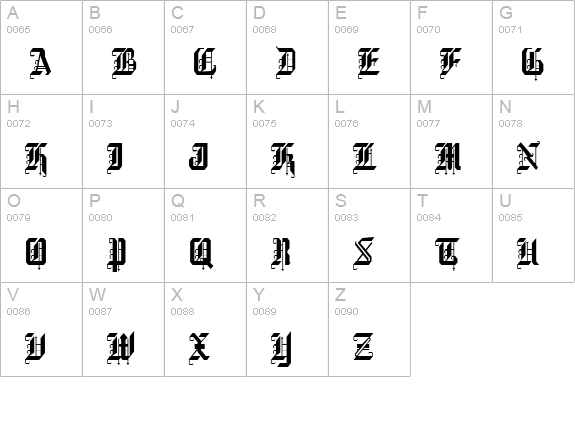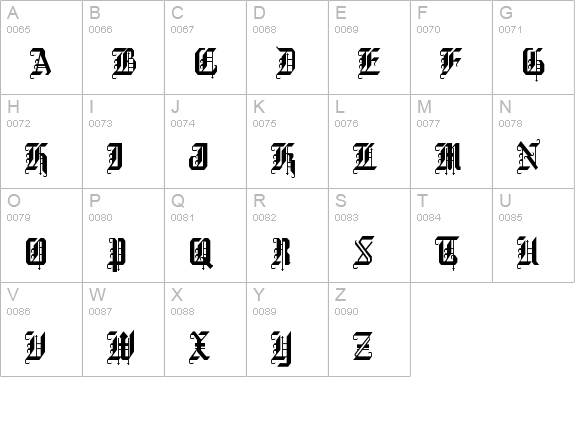
GothicCondensed Normal Font Details
GothicCondensed Normal is the standard, neutral variant in the GothicCondensed typeface family \xE2\x80\x94 well suited to general body text, paragraphs, and standard typographic work.
GothicCondensed Normal font is a classic and timeless typeface that exudes elegance and sophistication. Its condensed style gives it a sleek and modern look, making it perfect for a wide range of design projects. The sharp edges and clean lines of this font add a touch of refinement to any text or graphic. Best of all, GothicCondensed Normal font is available for free download at FontsMarket.com. This means you can easily add this stylish font to your collection without any cost. Whether you are working on a print design, web project, or any other creative endeavor, GothicCondensed Normal font is sure to elevate your work with its unique charm and versatility. Don't miss out on the opportunity to enhance your designs with this stunning font - download GothicCondensed Normal today and start creating with style and flair!